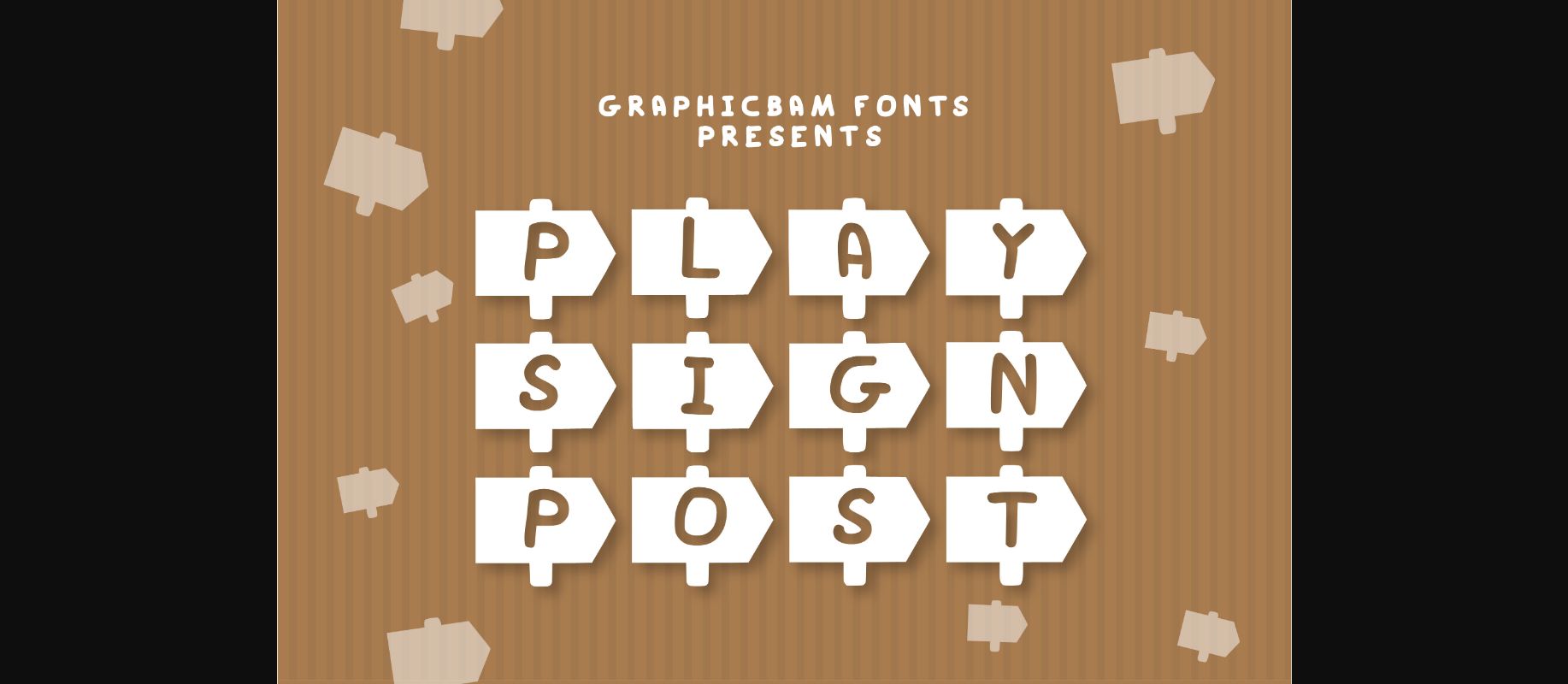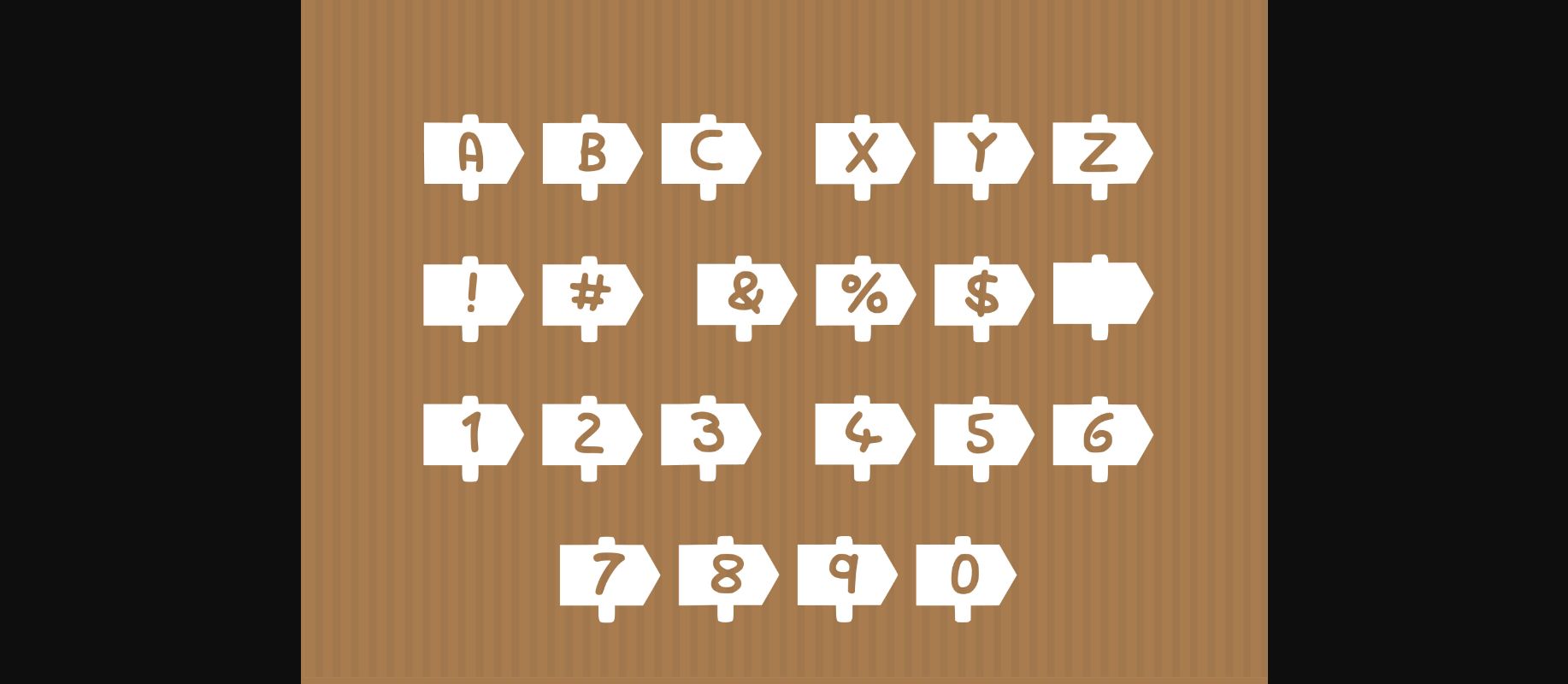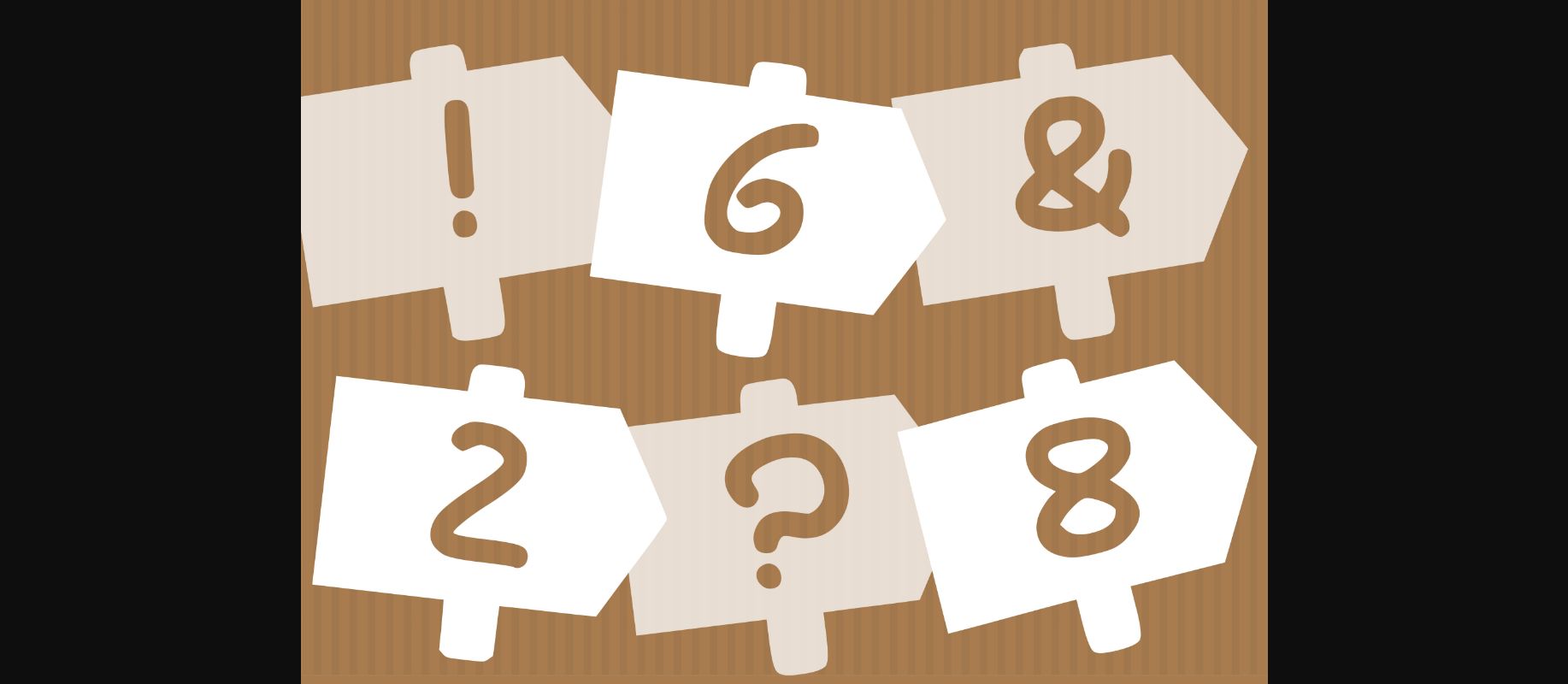
Play Sign Post Font
About Play Sign Post Font
Play Sign Post is a cool looking and interesting decorative font. Whether you’re using it for crafts, digital design, presentations, or making greeting cards, this font has the potential to become your favorite go-to font, no matter the occasion!